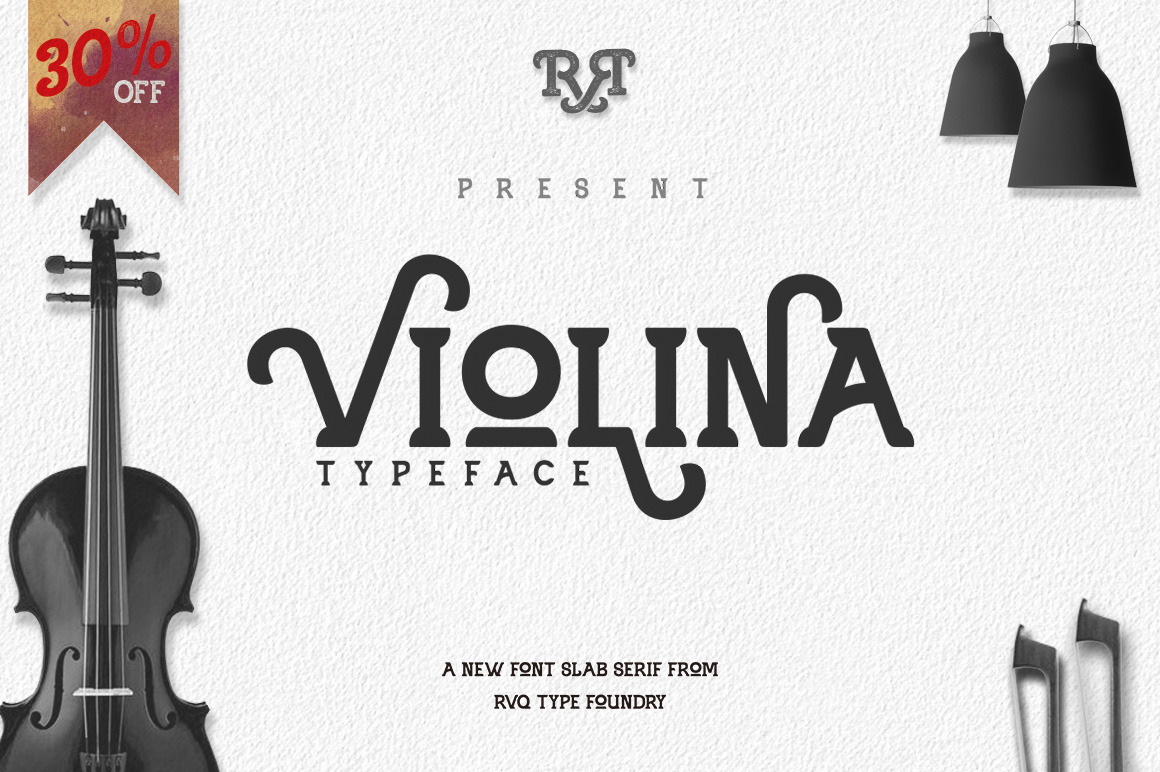
Violina Typeface
Violina Typeface is new font from Rvq type foundry, the font with simple, minimalistic, retro and vintage feel character set. Come with 2 styles, a clean and rough to create an option for the designs. To create the beautiful combination, just mix the uppercase and lowercase then mix with the alternative glyphs. The Violina typeface includes a full set of capital and lowercase letters, as well as multi-lingual support, currency figures, numerals, punctuation & some extra glyphs.
Violina Typeface
Violina Typeface Rough
Violina typeface is suitable font for many creative products & designs.